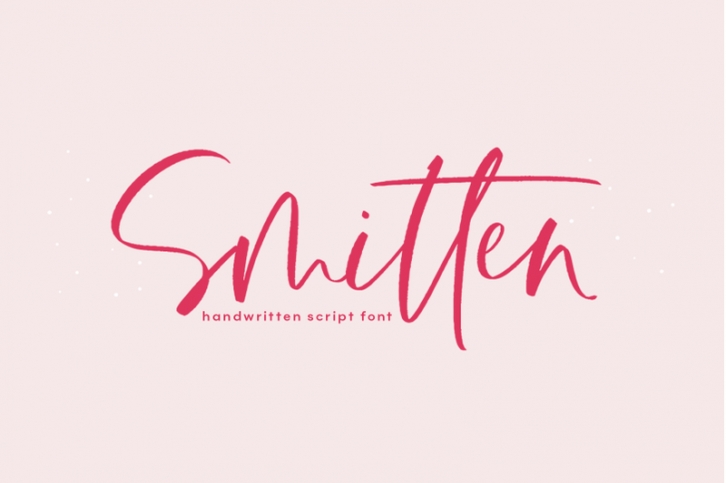
Smitten - Handwritten Script Font Download
Smitten is a handwritten font with a modern calligraphy look!
It is perfect for wedding decor, invitations, branding, logos, social media and more!